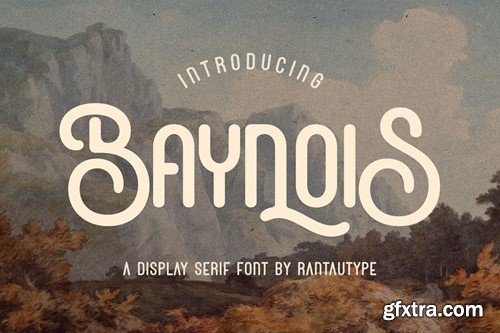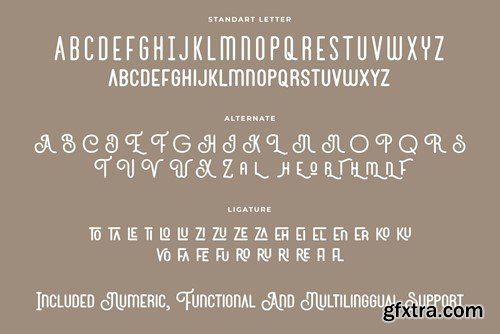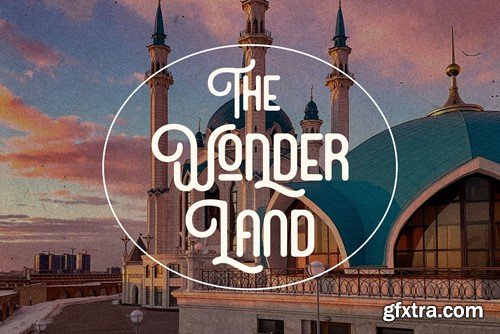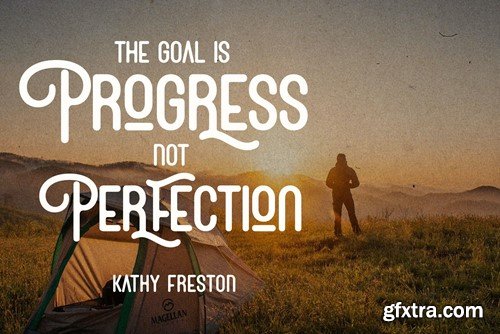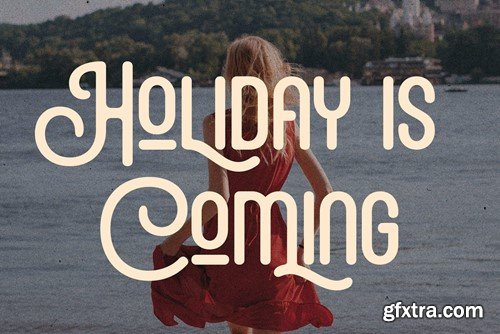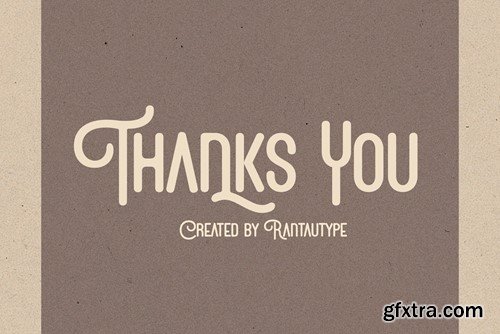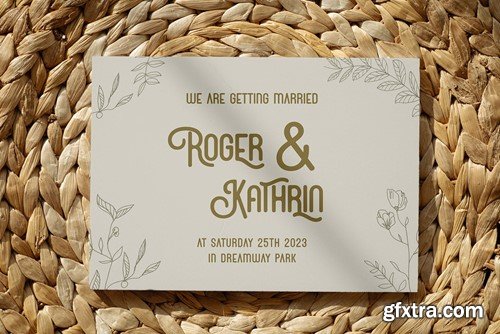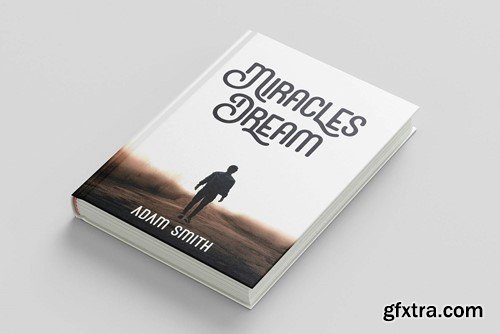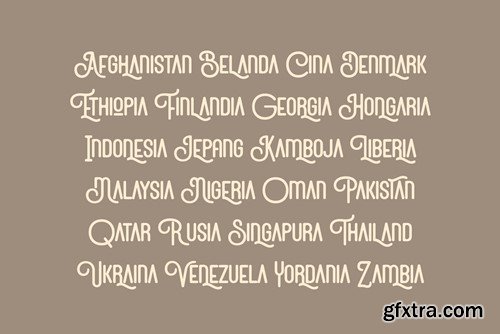
巴扬诺斯复古细线字体 9EZSGLU
Hi Ladies and Gentleman ! Proudly present Baynois vintage monoline font, by rantautype. Baynois is a handcrafted vintage monoline font.This font inspired by vintage signage it looks modern, soft, and sophisticated. Come with alternate and ligature you can mix to create a more stunning display. Baynois also support multilingual accent support. Baynois separate in reguler and italic, is a beautiful choice for any creative endeavor, creating classy, modern, chic, lifestyle design such as logos, title, cover, branding, display and magazine, and more. Now you have can choice Baynois to elevate you desaign or branding. Features: File include: Langguange support: Afrikaans, Albanian, Asu, Basque, Bemba, Bena, Breton, Catalan, Chiga, Cornish, Danish, Dutch, English, Estonian, Faroese, Filipino, Finnish, French, Friulian, Galician, German, Gusii, Icelandic, Indonesian, Irish, Italian, Kabuverdianu, Kalenjin, Kinyarwanda, Luo, Luxembourgish, Luyia, Machame, Makhuwa-, Meetto, Makonde, Malagasy, Manx, Morisyen, Northv Ndebele, Norwegian, Bokmål, Norwegian, , Nynorsk, Nyankole, Oromo, Portuguese, Quechua, Romansh, Rombo, Rundi, Rwa, Samburu, Sango, Sangu, Scottish, Gaelic, Sena, Shambala, Shona, Soga, Somali, Spanish, Swahili, Swedish, Swiss, German, Taita, Teso, Uzbek (Latin), Volapük, Vunjo, Zulu Thank you for visit our store and Hope you enjoy our font!!